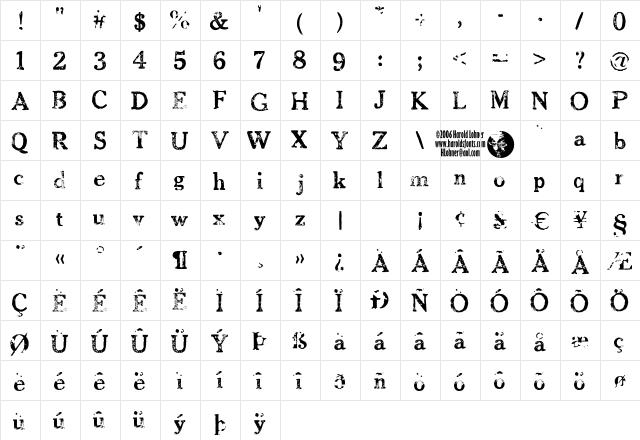
CheltPressLightVariegated Regular
Design Context for CheltPressLightVariegated Typeface
CheltPressLightVariegated is a composed and adaptable typeface that performs quietly and consistently across a wide range of design contexts. Its slender proportions lend an understated elegance to any composition.